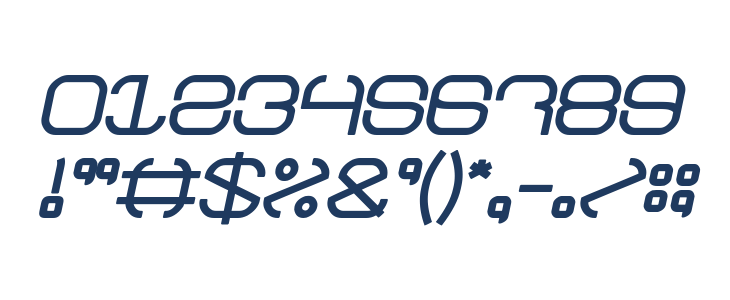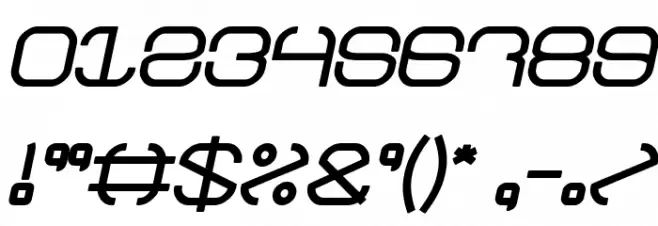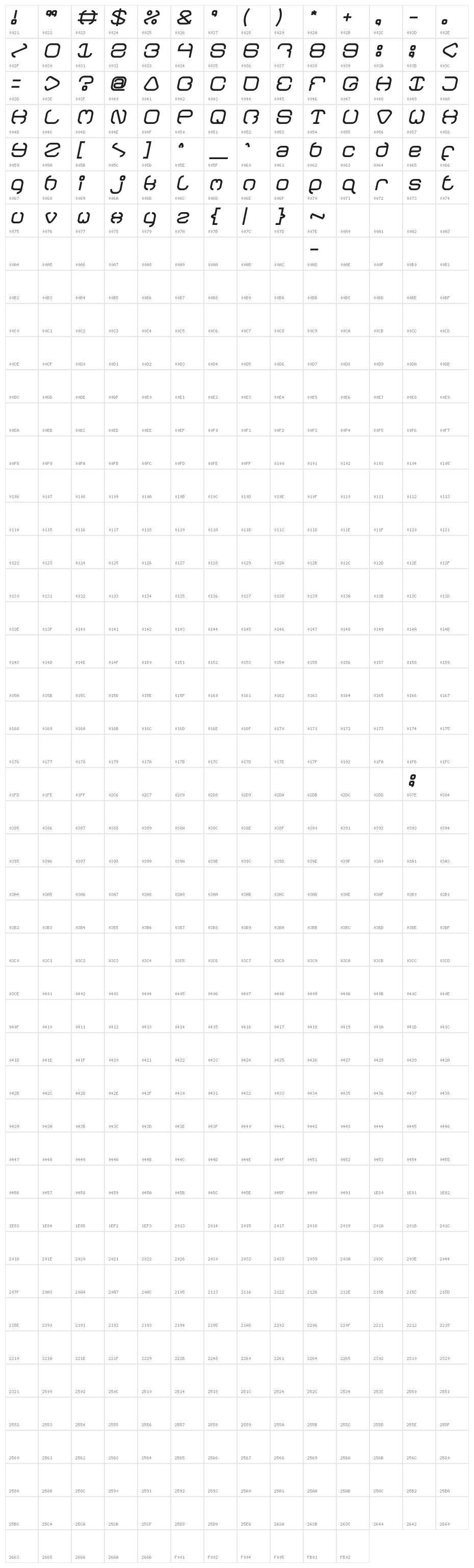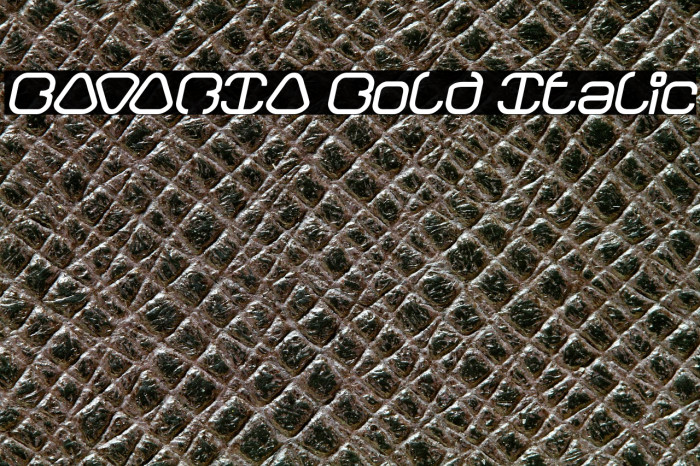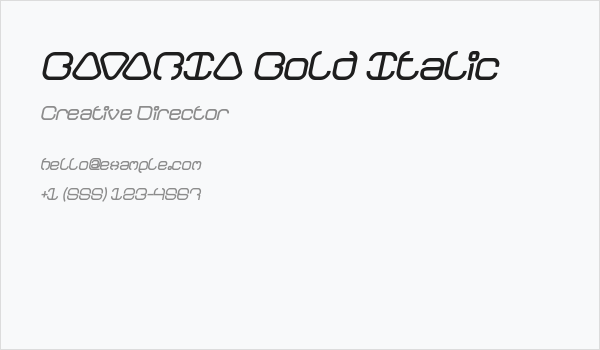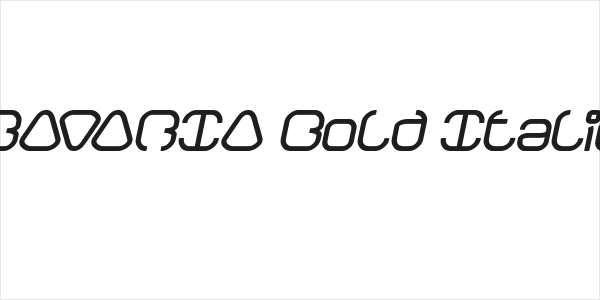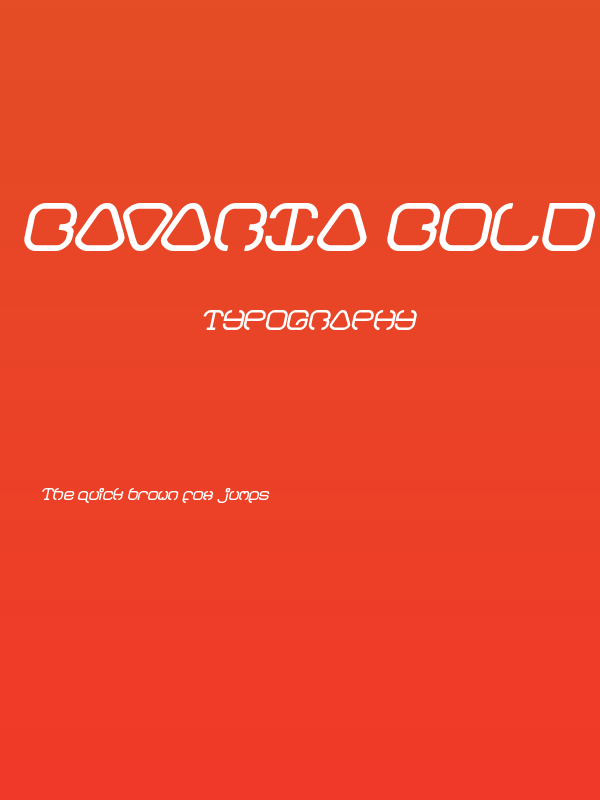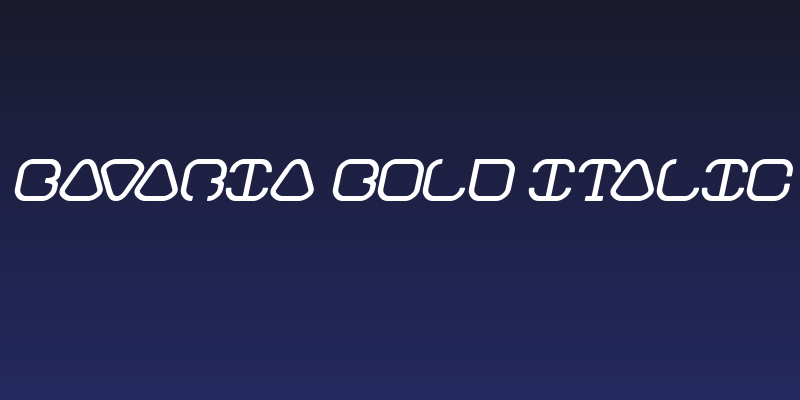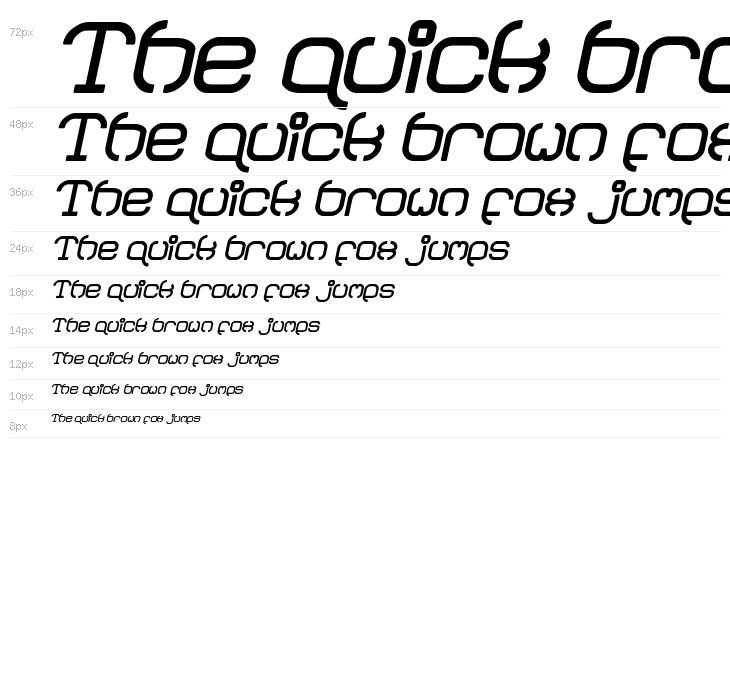
BAVARIA Bold Italic Font
BAVARIA Bold Italic Description
This font features a bold and italic style, characterized by its rounded and geometric letterforms. The strokes are consistent in thickness, giving it a modern and cohesive appearance. The characters are slightly slanted, enhancing the italic effect, while maintaining a strong and bold presence. The overall design is clean and minimalistic, with a futuristic touch that makes it stand out. The numbers and special characters follow the same design principles, ensuring uniformity across all glyphs.